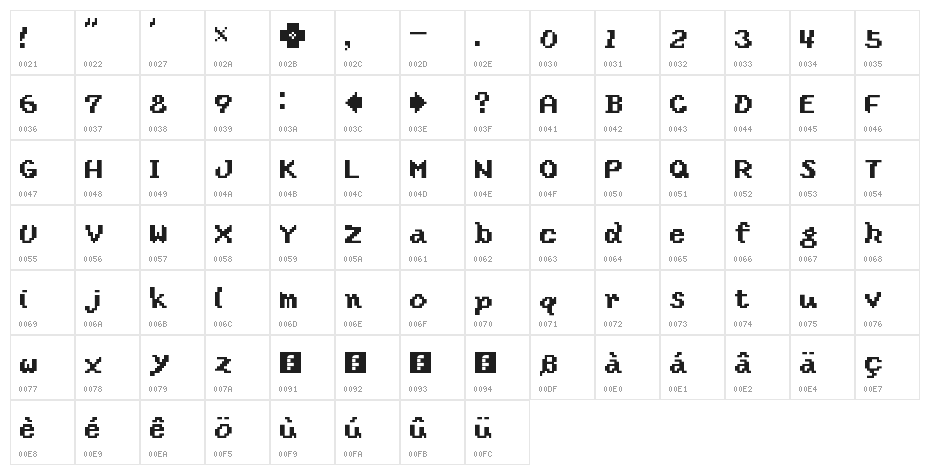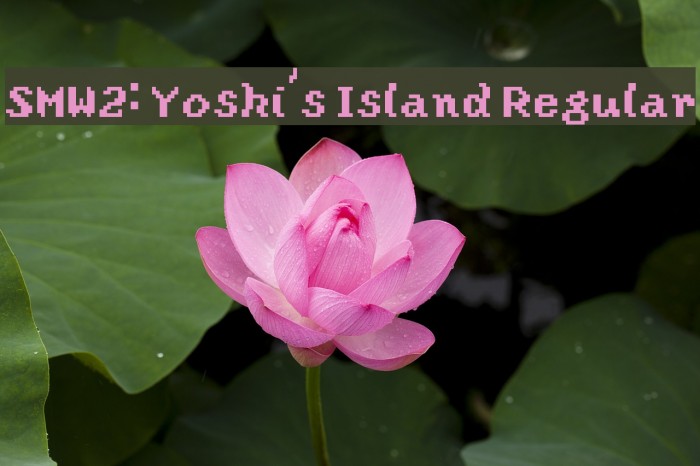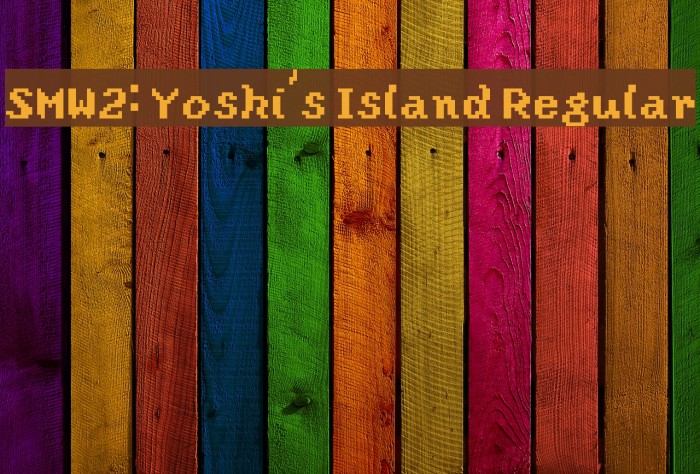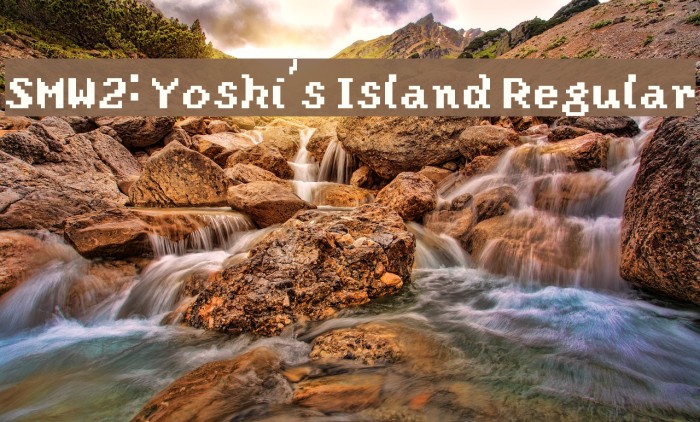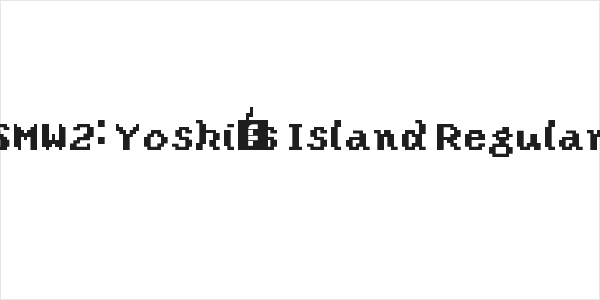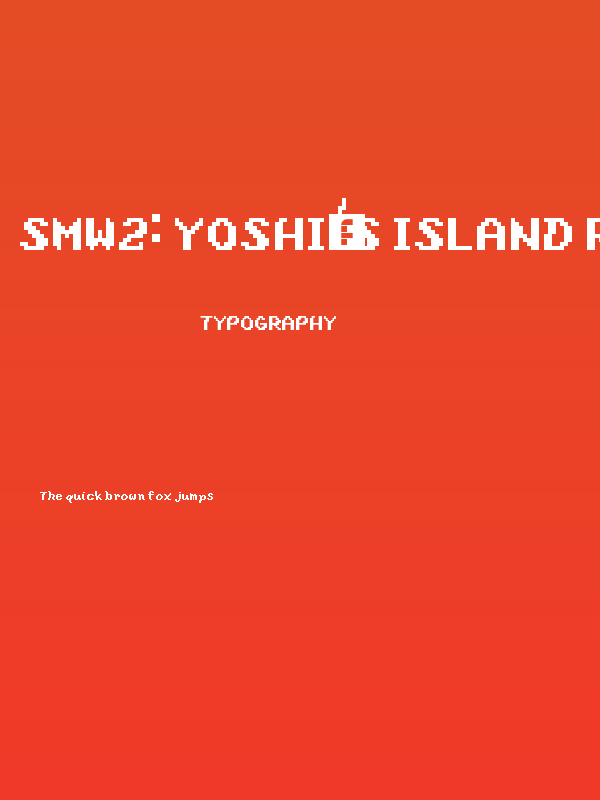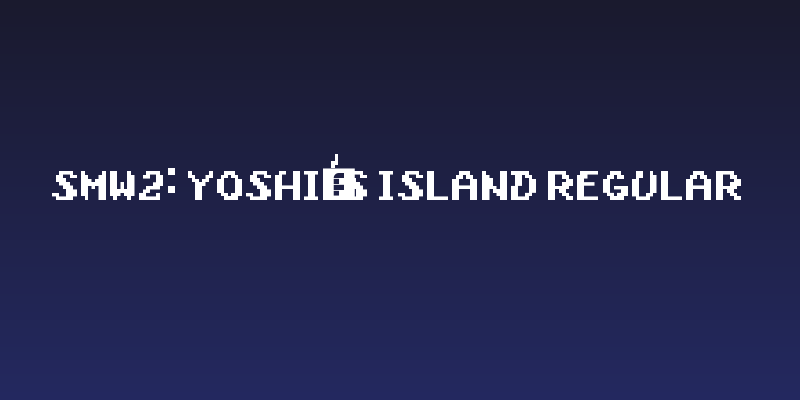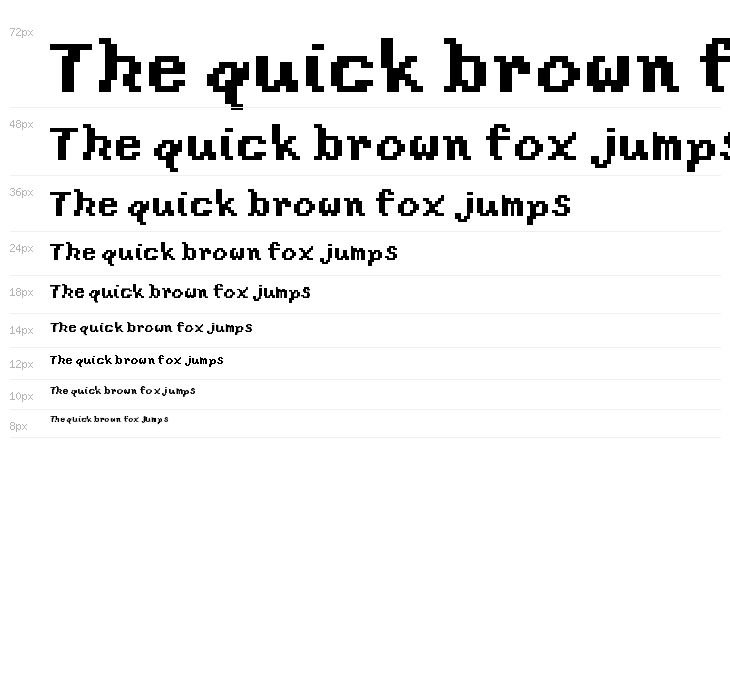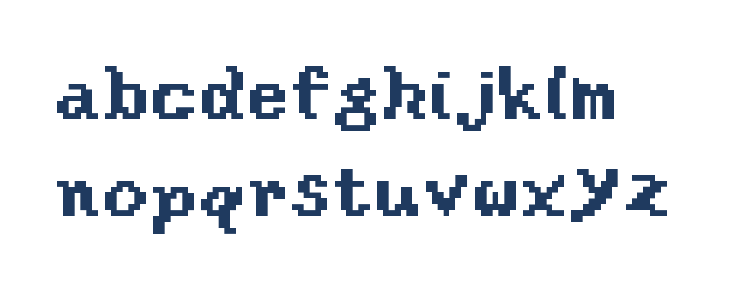
SMW2: Yoshi's Island Regular Font
SMW2: Yoshi's Island Regular Description
This font features a playful, pixelated design reminiscent of classic video game aesthetics. The characters are bold and blocky, with a uniform thickness that gives them a sturdy appearance. The uppercase and lowercase letters maintain a consistent style, with slight variations in the curves and angles to add a touch of uniqueness. The numbers and special characters follow the same pixelated theme, ensuring a cohesive look across all elements. This font is ideal for projects that aim to evoke nostalgia or a retro gaming vibe.
| Overall Style | Retro, Playful |
| Proposed Projects | Ideal for video game designs, retro-themed posters, and nostalgic branding projects. |